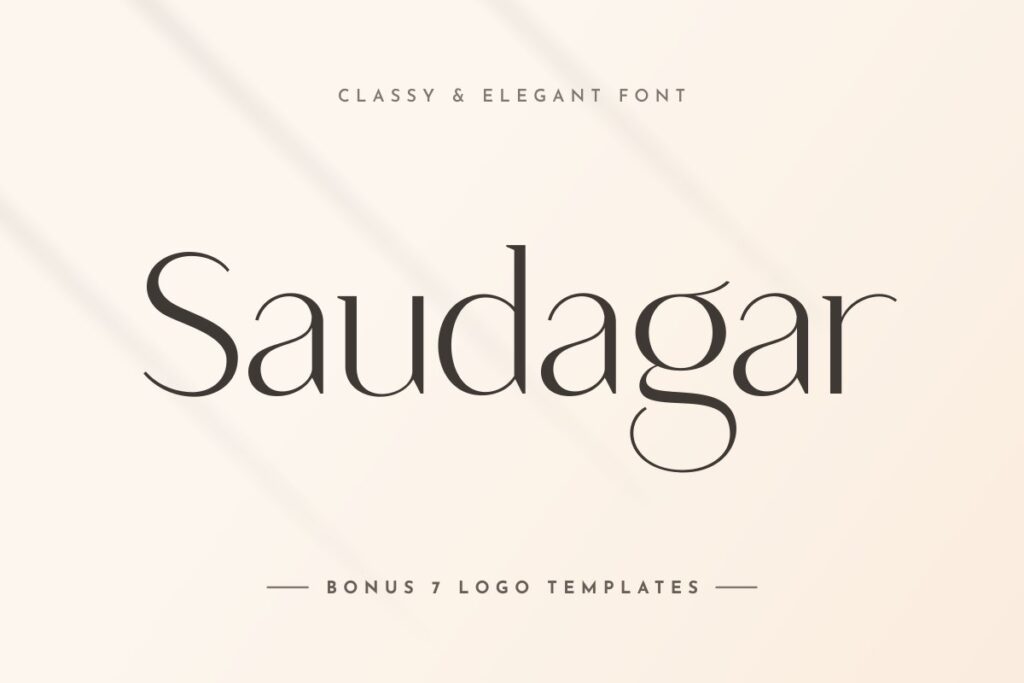
Saudagar is a stylish modern calligraphy font with casual chic flair. It is perfect for branding, wedding invites and cards, and maybe for some project.
Saudagar Free Font
• Designer :
• Sensatype